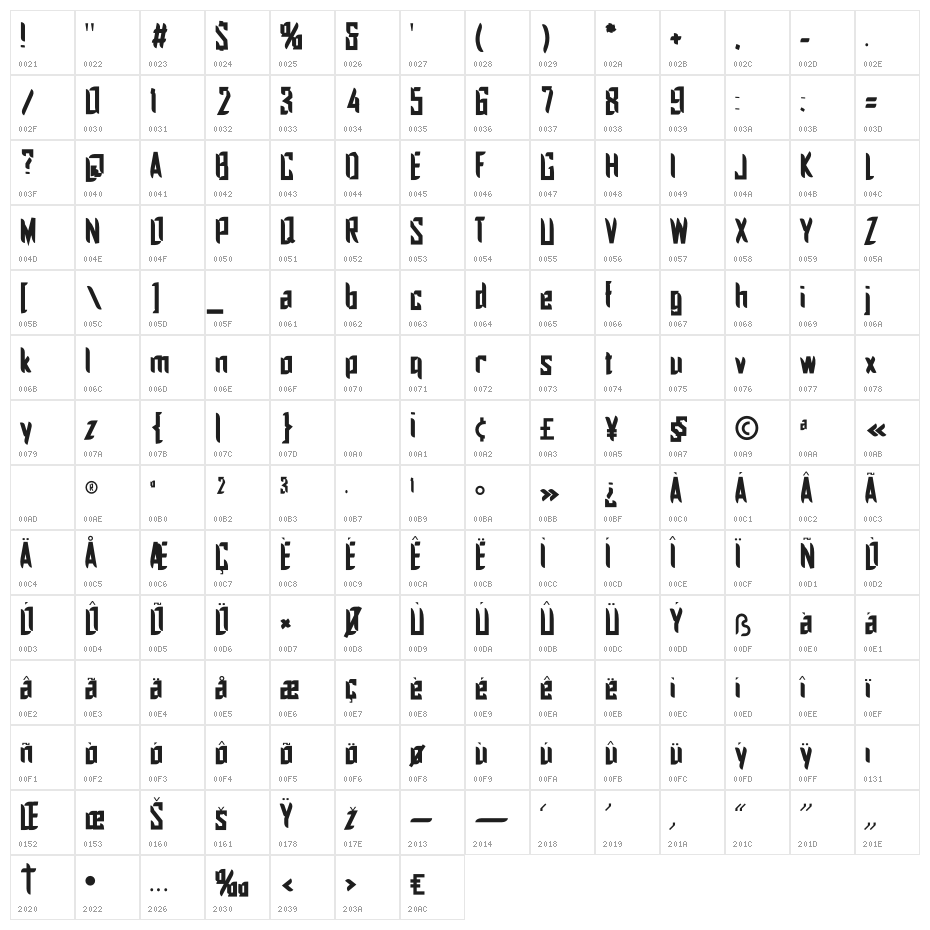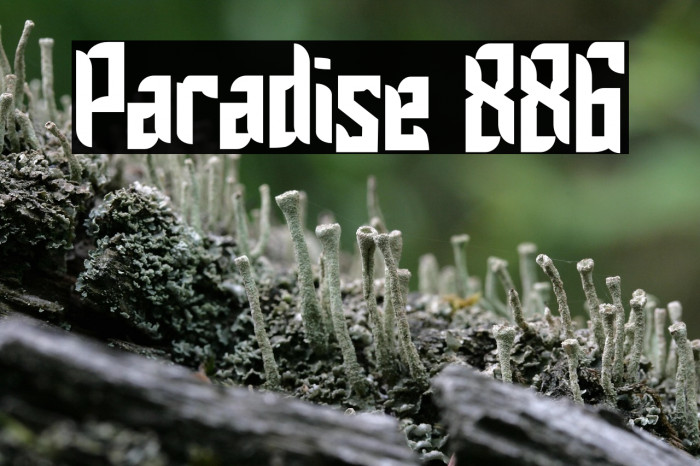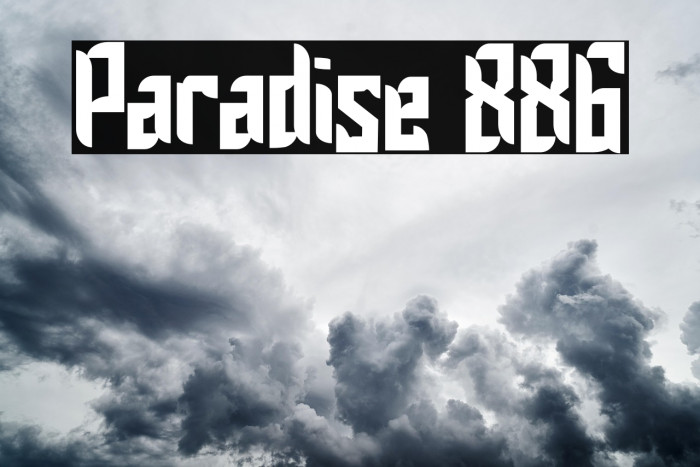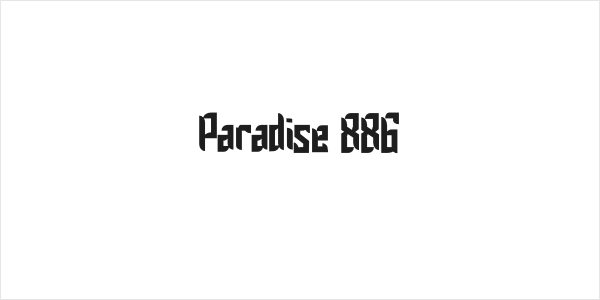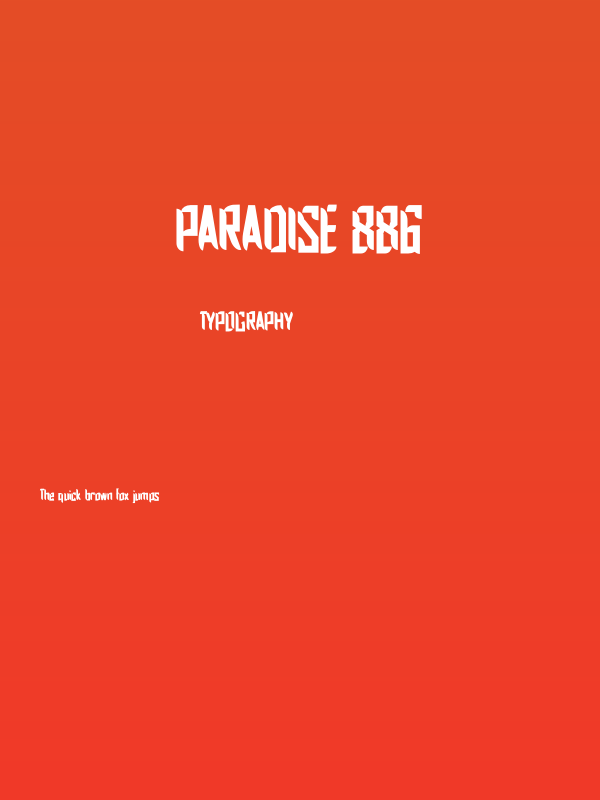
Paradise 886 Font
Paradise 886 Description
This font features a bold and striking design with sharp, angular edges and a distinct geometric style. The uppercase and lowercase letters maintain a consistent width, creating a cohesive appearance. The numbers and special characters follow the same angular theme, enhancing the overall aesthetic. The font's unique style makes it stand out, with each character exhibiting a sense of movement and energy. The bold strokes and sharp angles give it a modern and edgy feel, making it suitable for projects that require a strong visual impact.
| Proposed Projects | Ideal for posters, logos, branding, and any project needing a bold, modern look. |